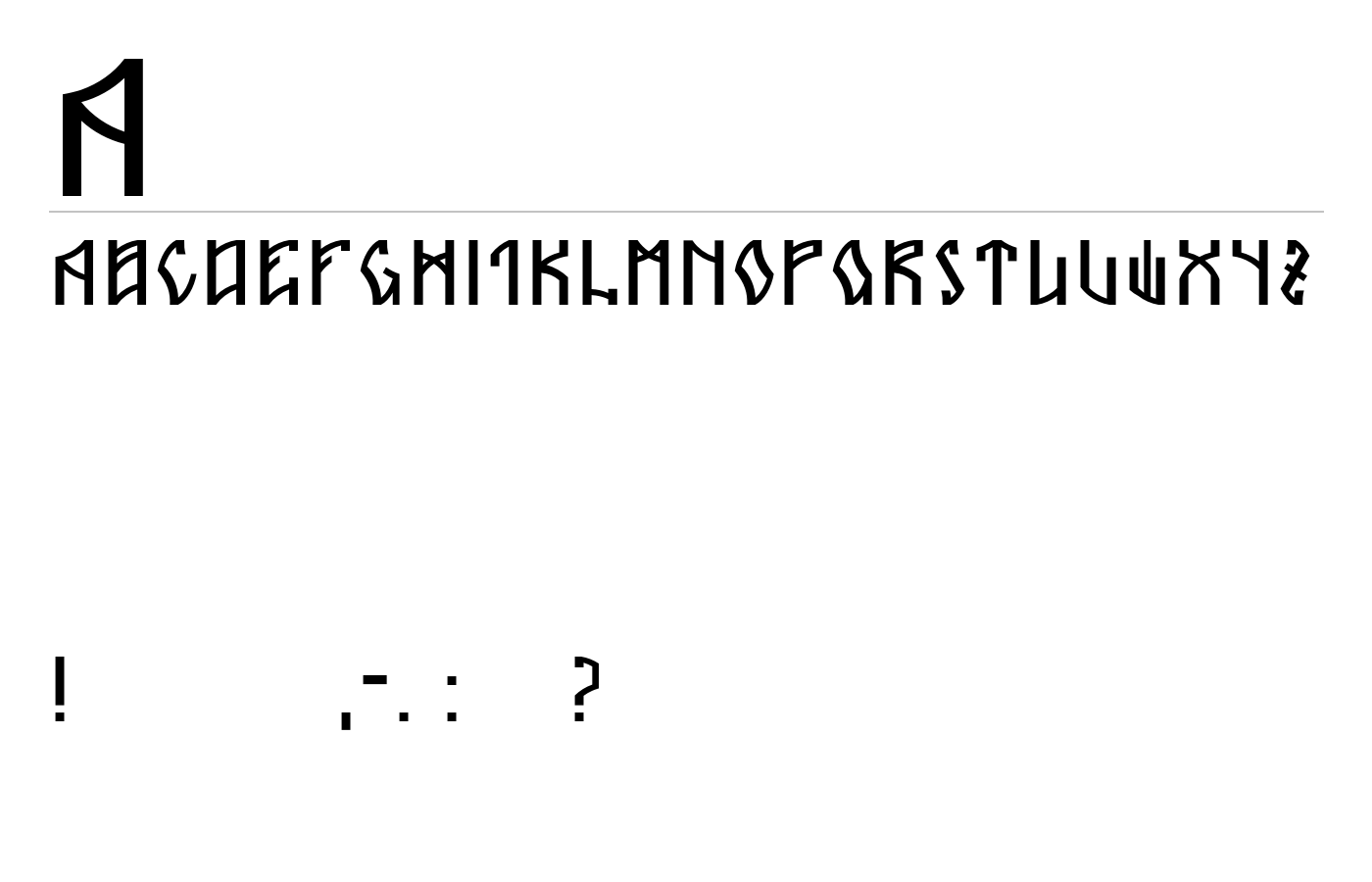
Airyin is a unique, decorative sans serif font featuring angular, sharp-edged letterforms that evoke a modern, almost futuristic vibe with a hint of ancient runic style. Its tall, condensed characters and consistent stroke weight create a striking, bold appearance ideal for eye-catching headlines, logos, or branding projects seeking a distinctive, edgy look. This font works best in creative contexts where originality and strong visual impact are key.
Airyin Font
About Airyin Font